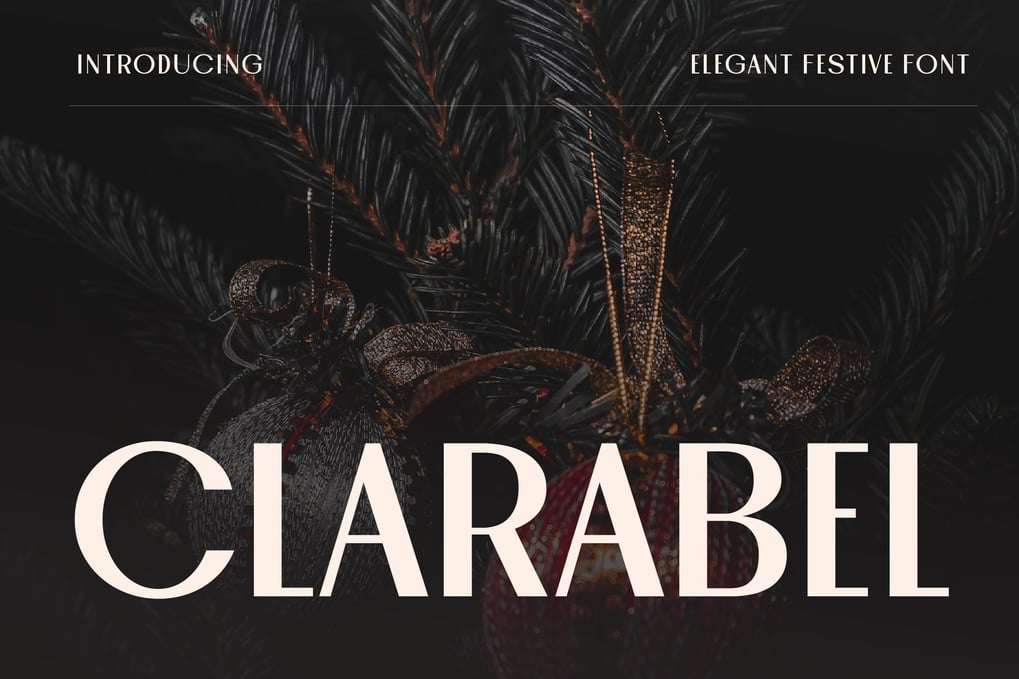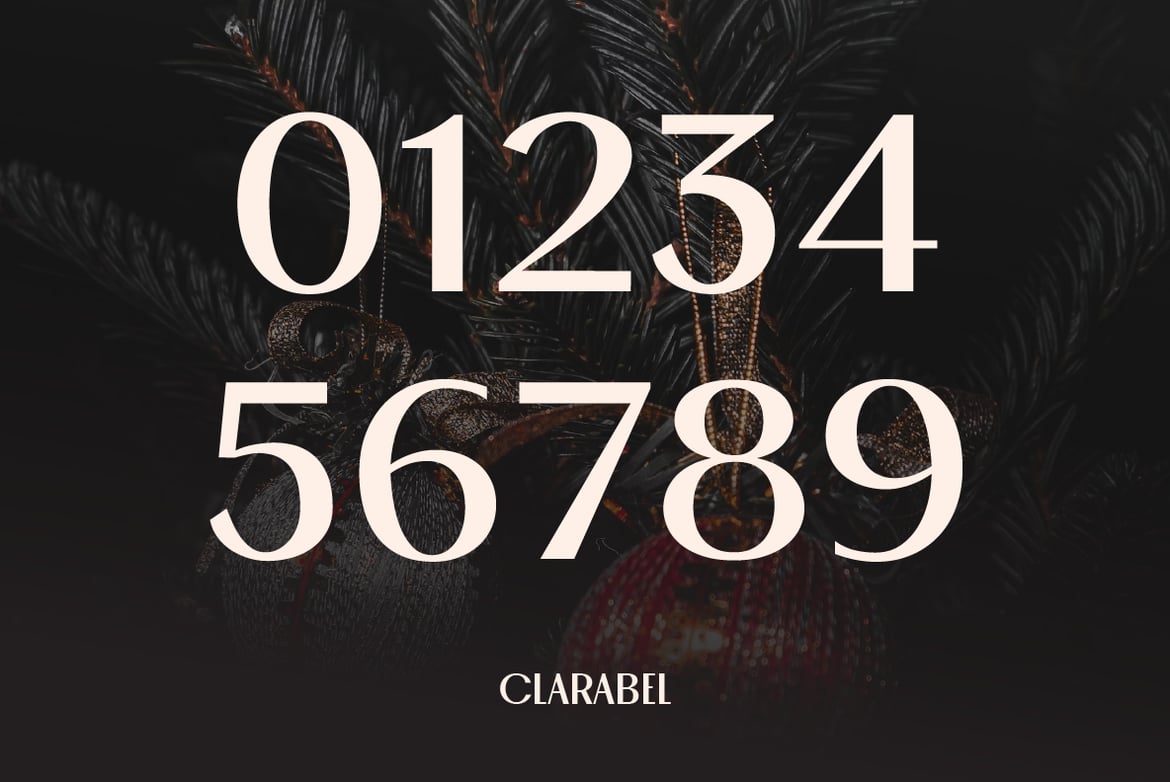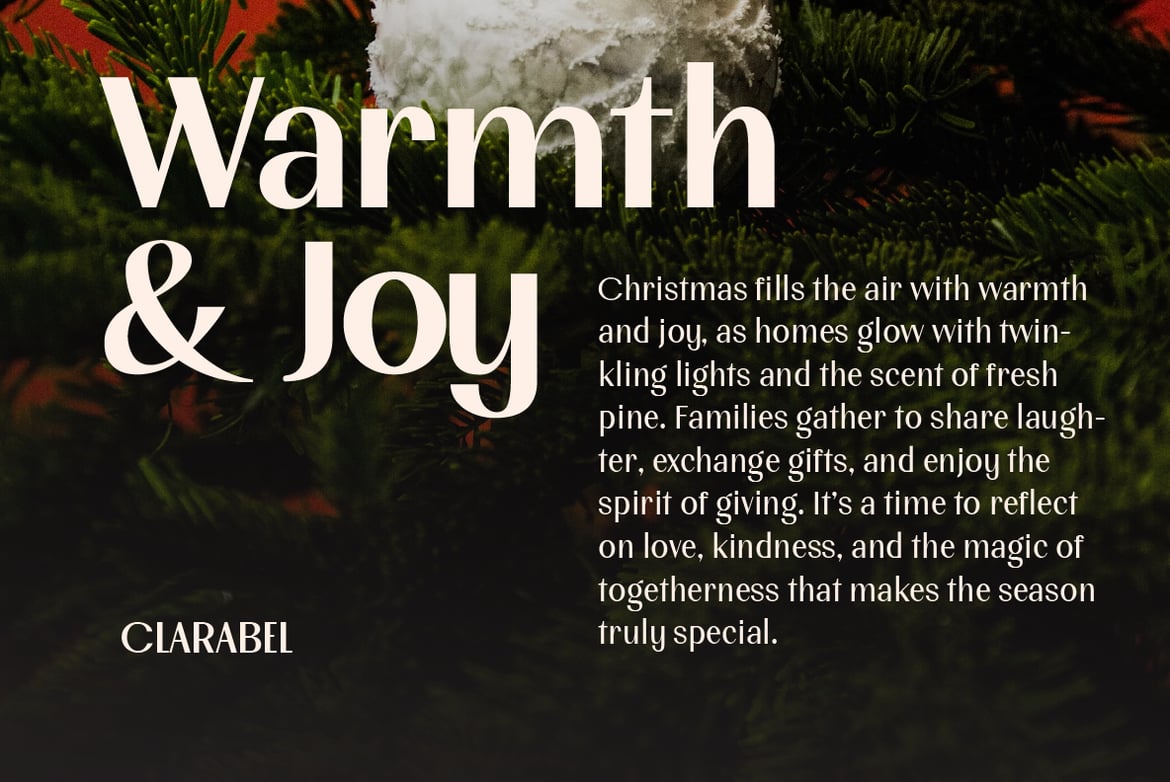
Clarabel Festive Font
* Straight lines with bold and thin highlights
* Elegant and modern design
* Ideal for branding and graphic design
* Easy to use and standout